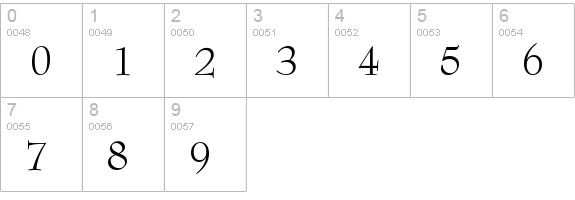
Bernhart Normal is the standard, neutral variant in the Bernhart typeface family \xE2\x80\x94 well suited to general body text, paragraphs, and standard typographic work.
Bernhart Normal font is a versatile and elegant typeface that exudes sophistication and style. With its classic yet modern design, this font is perfect for a wide range of creative projects, from branding to editorial design. Its clean lines and balanced proportions make it easy to read, while its subtle details add a touch of character and charm. What sets Bernhart Normal font apart is that it is freely available to download at FontsMarket.com. This means that you can easily access and use this high-quality font for your personal and commercial projects without any cost. Whether you're designing a sleek logo, crafting a stylish website, or creating eye-catching marketing materials, Bernhart Normal font is sure to elevate your work and make a lasting impression. Download it today and add a touch of sophistication to your designs.